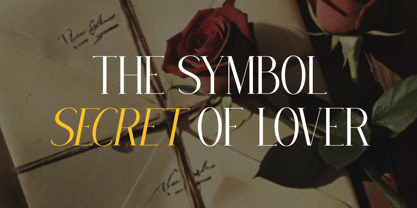
Fosther
by Flawlessandco
The Fosther Font Family was designed by Achmad Yani and published by Flawlessandco. Fosther contains 1 styles. More about this family
Introducing "Fosther" a refined serif font combining timeless elegance and modern design. With its sleek letterforms and beautifully crafted ligatures, Fosther is perfect for adding a touch of sophistication to your projects. This font is suitable for any graphic design, such as branding materials, wedding stationery, product packaging, branding and logo, etc.
There's some connected letters and some alternates that suitable for any graphic designs such as branding materials, print, business cards, logo, poster, t-shirt, photography, quotes, etc.
This font support for some multilingual. Also contains uppercase A-Z and lowercase a-z, alternate character, numbers 0-9, alternates & ligatures, and some punctuation.